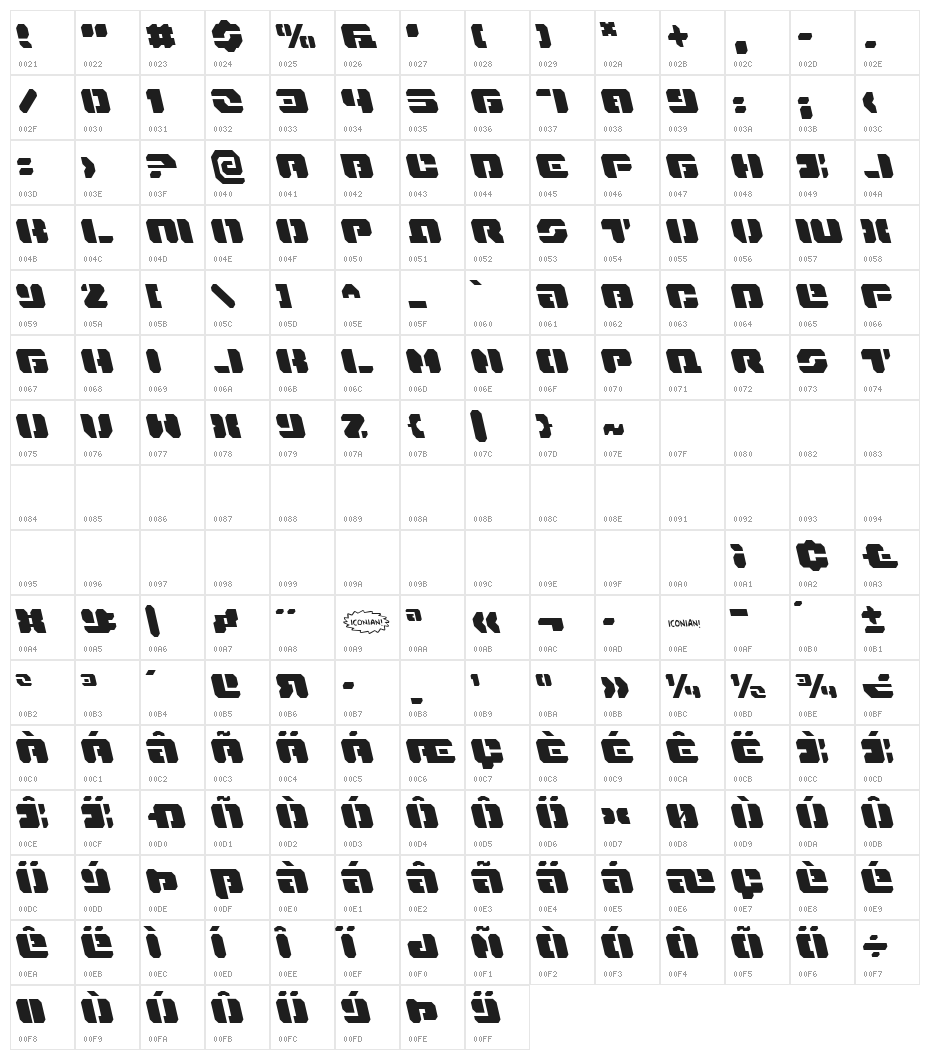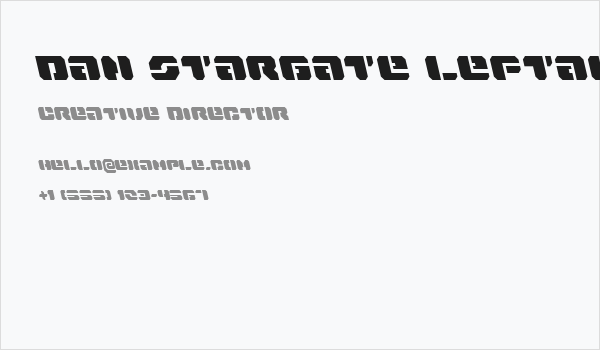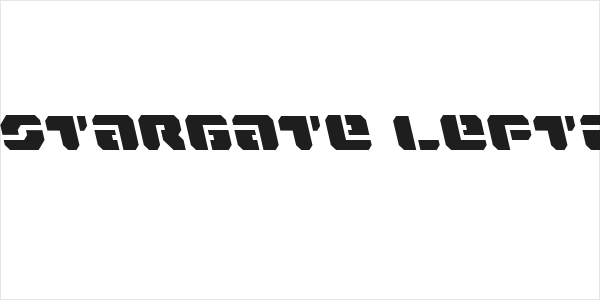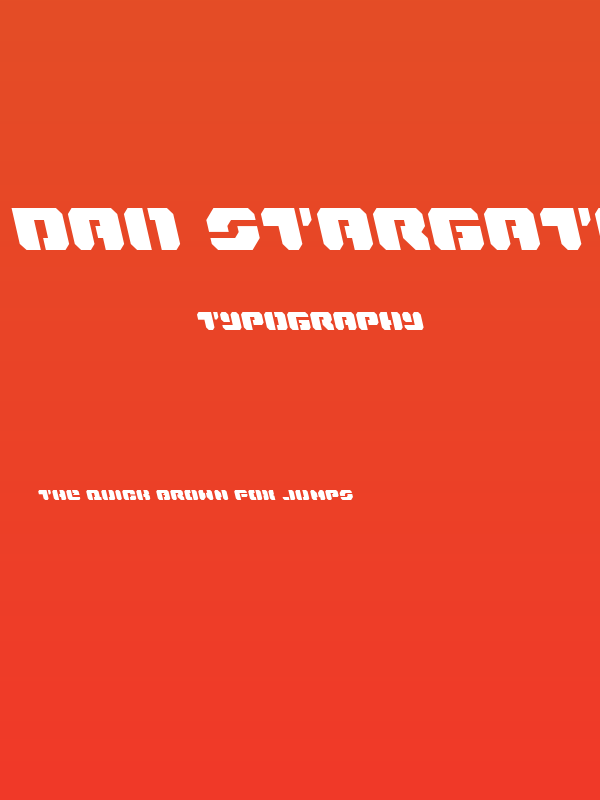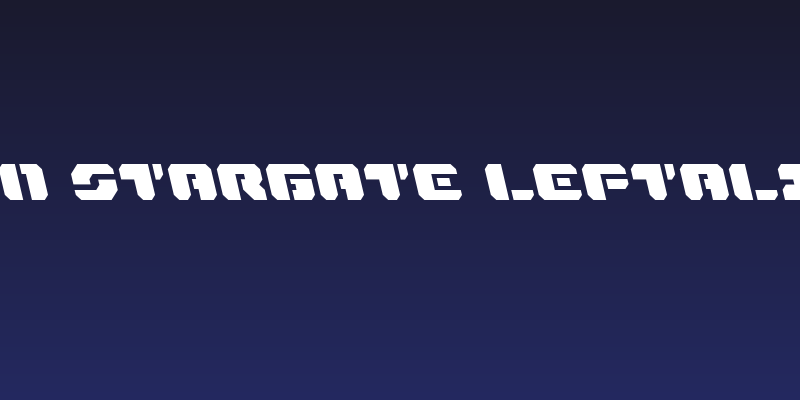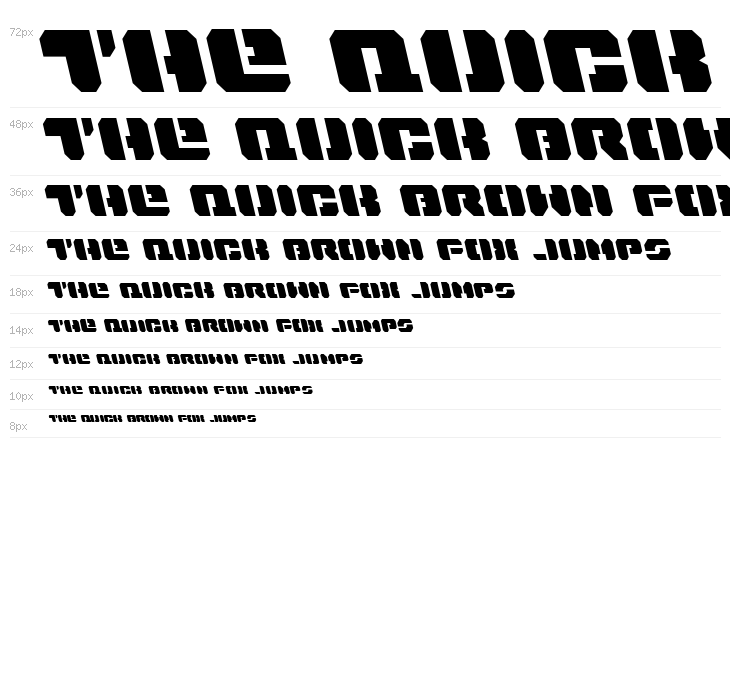
Dan Stargate Leftalic Font
Dan Stargate Leftalic Description
This font features a bold, futuristic design with a distinct geometric style. The characters are constructed with sharp angles and a blocky appearance, giving it a strong and impactful presence. The uppercase and lowercase letters maintain a consistent width, contributing to a uniform look. The numbers and special characters follow the same design principles, ensuring cohesion across all elements. The font's unique style is reminiscent of sci-fi themes, making it suitable for projects that require a modern and edgy aesthetic. The angular cuts and solid fills create a sense of movement and dynamism, while the overall boldness ensures readability even at smaller sizes.
| Proposed Projects | Ideal for sci-fi themed posters, video game titles, tech branding, and futuristic designs. |